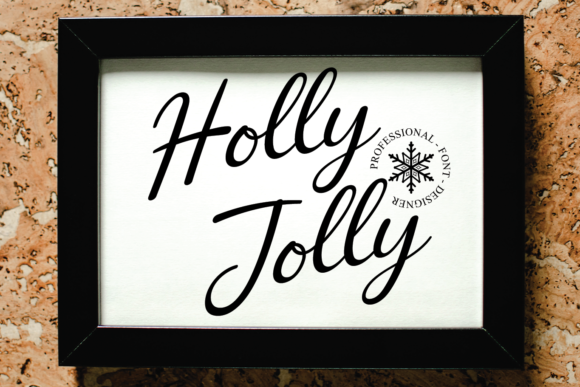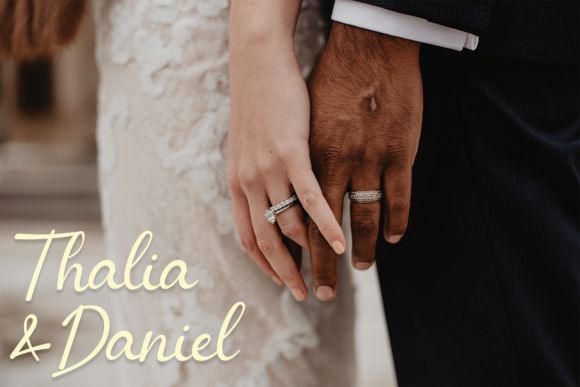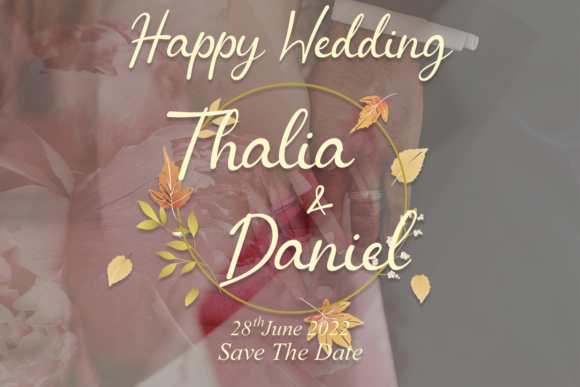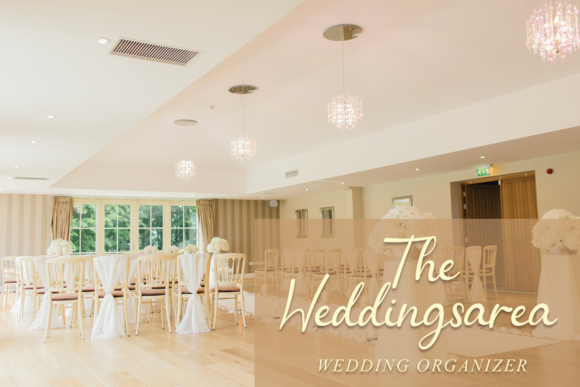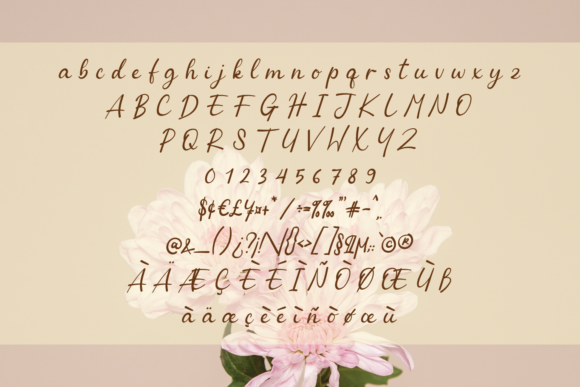
Deck the Halls with Elegant Typography
Have you ever found yourself staring at a blank design canvas, struggling to bring your creative vision to life? We’ve all been there. It’s that moment when the perfect font can make all the difference between a design that’s just ‘meh’ and one that’s truly magical. For those of us who crave a touch of elegance and sophistication in our designs, there’s a font that’s sure to bring a smile to our faces – the Holly Jolly Font.
This lovely and delicate script font is a breath of fresh air for designers seeking a beautiful and refreshing look for their projects. Whether you’re crafting a holiday card, a wedding invitation, or a branding package, the Holly Jolly Font is the perfect companion to help you create something truly special. Its unique charm and character make it a valuable addition to any designer’s toolkit.
Holly Jolly Font Key Features
- Size: The font comes in a single weight, with 1,046 glyphs, covering a wide range of languages and characters.
- Unique Characteristics: Holly Jolly Font features a playful, festive design with a mix of serif and sans-serif elements, perfect for holiday-themed projects.
- Style: The font includes a variety of ornaments and decorations, making it ideal for creating festive and whimsical designs.
Holly Jolly Font Review
I recently had the chance to work with the Holly Jolly Font, and I have to say, it’s a unique and festive option for holiday designs. ✨ The font’s playful, handwritten feel is perfect for adding a touch of whimsy to cards, posters, and other seasonal materials. The font’s range of weights and styles allows for a lot of creative flexibility, and the ligatures add a nice touch of sophistication.
- Beautiful, cursive script lines ✨
- Good range of weights and styles ✨
- Ligatures add a level of sophistication ✨
- Works well for a variety of holiday-themed designs ✨
However, there are a few limitations to consider. ⚠️ The font can feel a bit overused, and it may not be the best choice for more serious or elegant designs. Additionally, the font’s size and line height can be a bit tricky to adjust, especially in smaller text sizes.
- Can feel overused in some designs ⚠️
- May not be suitable for more serious or elegant designs ⚠️
- Size and line height can be tricky to adjust ⚠️
Overall, I think the Holly Jolly Font is a great option for designers looking to add a playful, festive touch to their holiday designs. While it may not be the best choice for every project, it’s definitely worth considering for the right type of design.
Holly Jolly Font: A Practical Application Guide
The Holly Jolly Font is perfect for creating festive and playful designs for holiday cards, gift tags, and social media graphics. To get the most out of it, use it in conjunction with bold colors and playful graphics. Experiment with different font sizes and styles to add depth and visual interest to your designs.